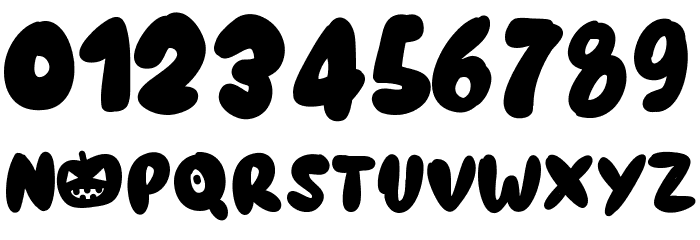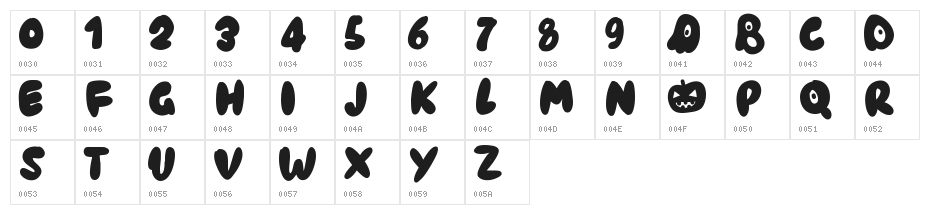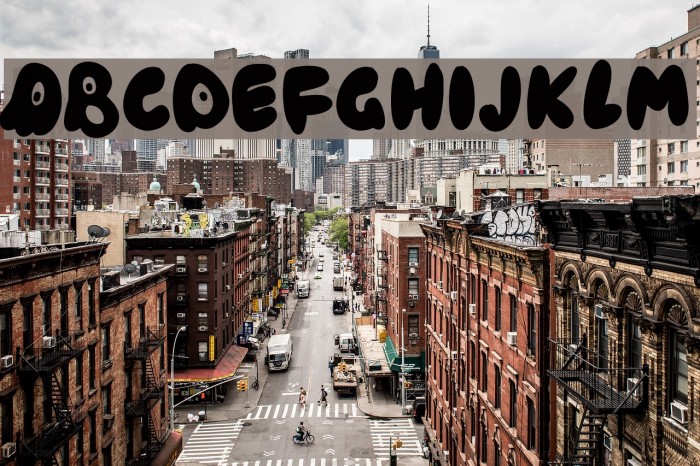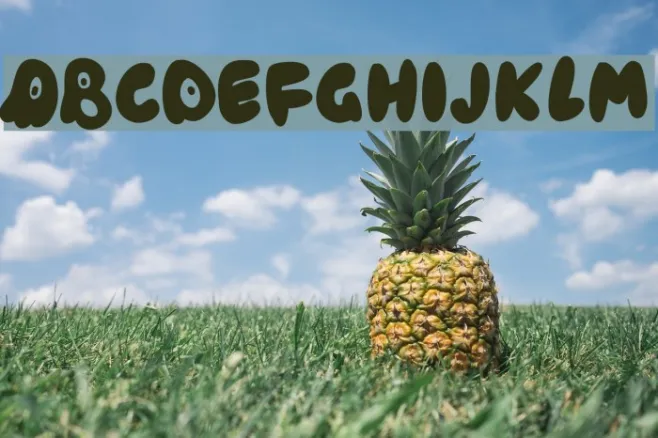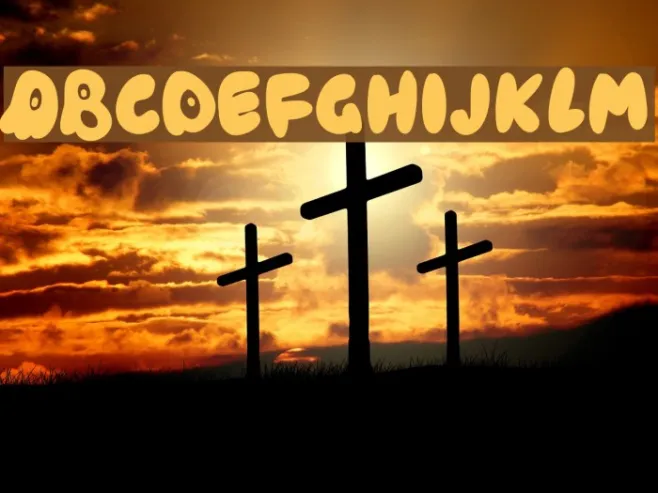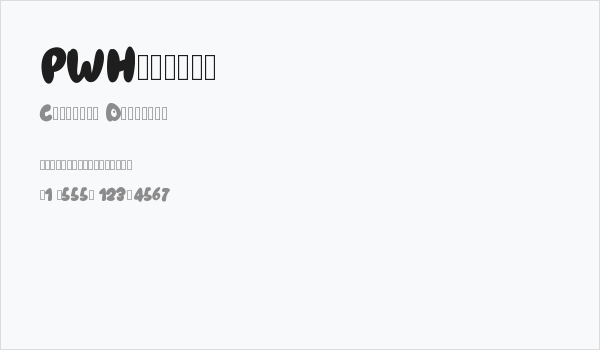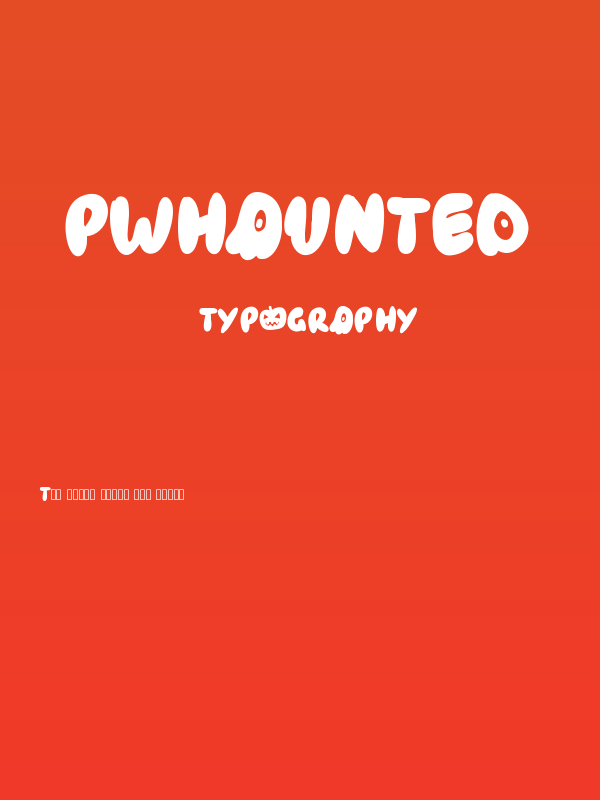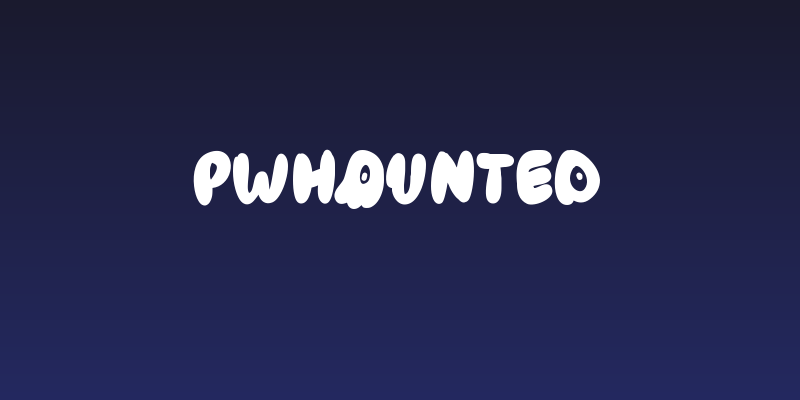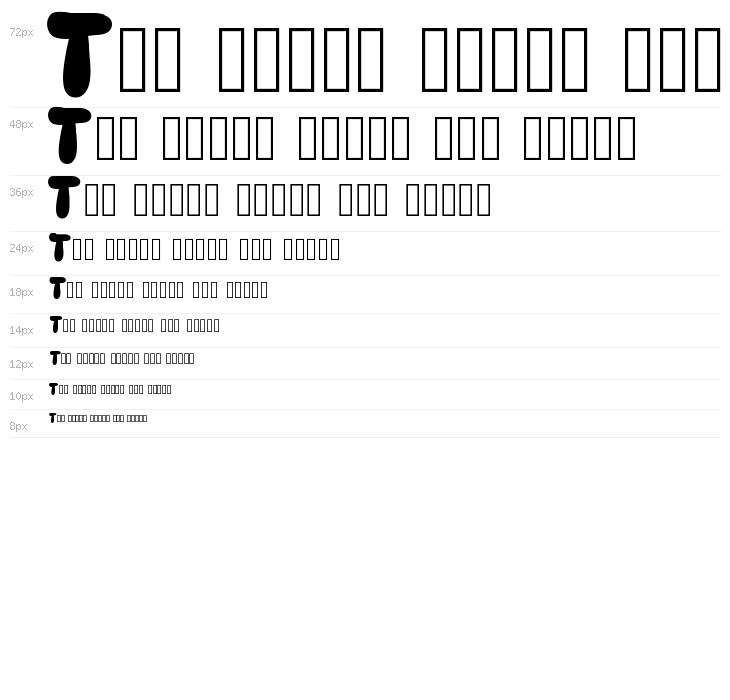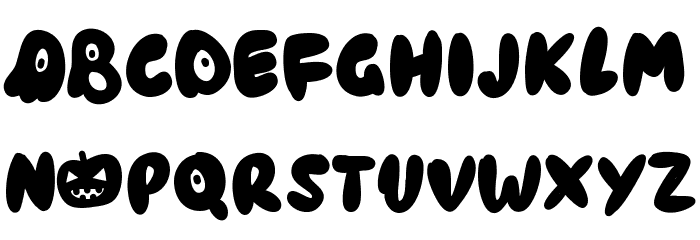
PWHaunted Font
PWHaunted Description
This playful and spooky font features bold, rounded characters with a whimsical touch, perfect for Halloween-themed designs. The letters are thick and bubbly, with a unique style that incorporates playful elements like a pumpkin face in the 'O'. The numbers and special characters maintain the same playful and bold aesthetic, making it suitable for eye-catching designs. The overall look is both fun and slightly eerie, capturing the essence of a haunted theme.
| Use Case | Headlines, Posters, Invitations |
| Proposed Projects | Ideal for Halloween party invitations, themed posters, children's book covers, and festive decorations. |